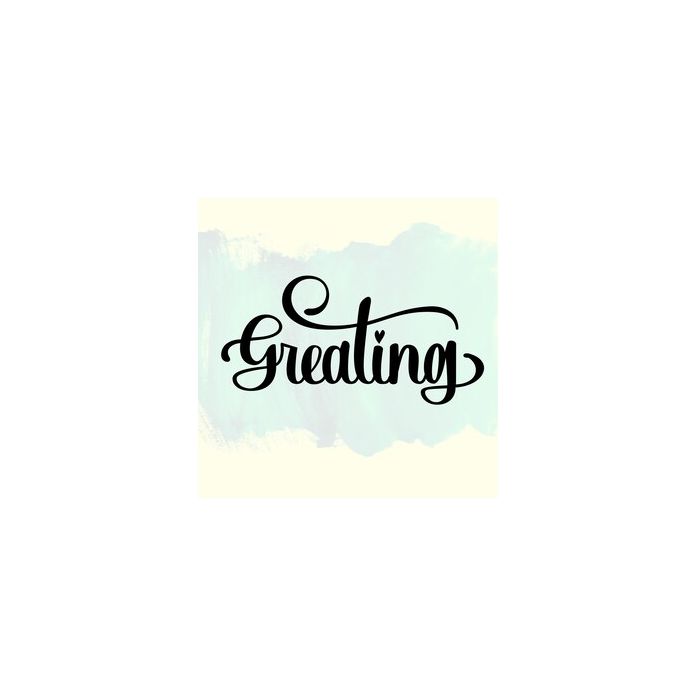
Greating font with a unique style original handwriting. Perfect for projects, products, crafts, invitations and personalization. Includes alphabet, numbers, and punctuation.